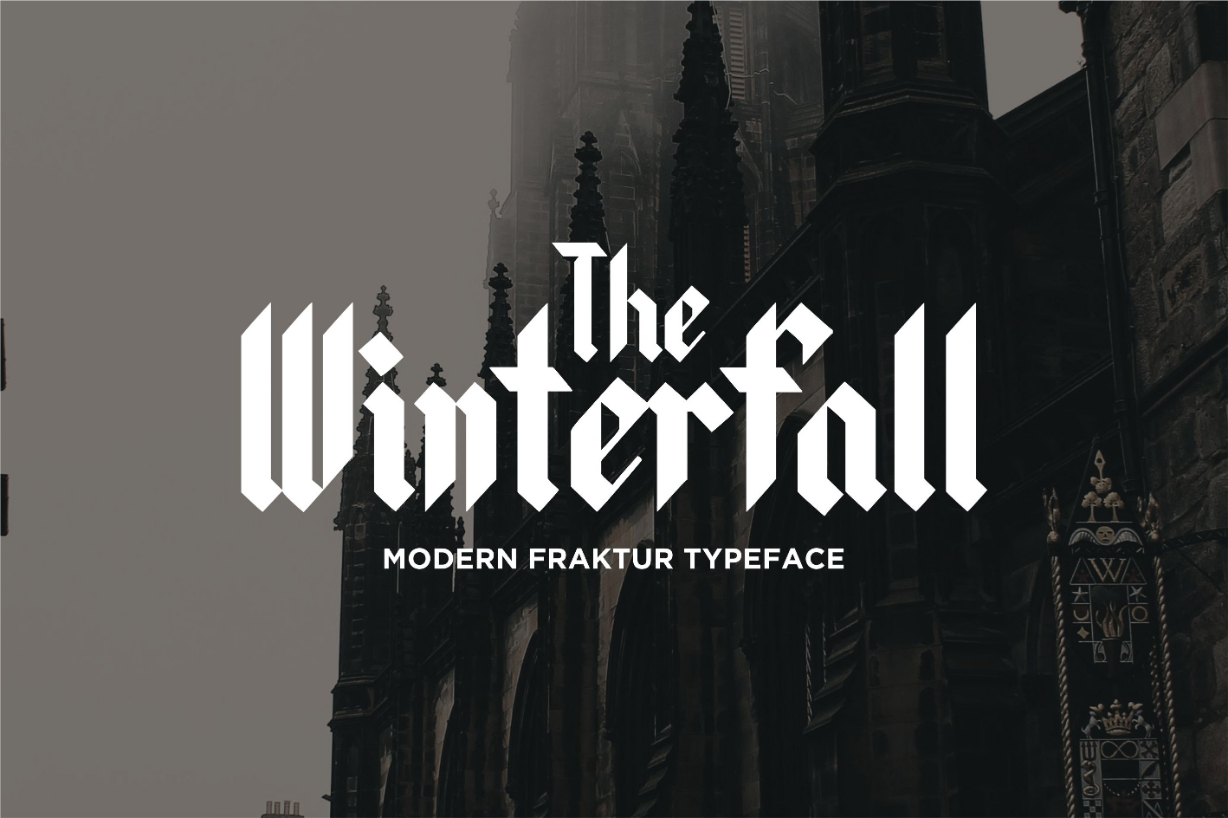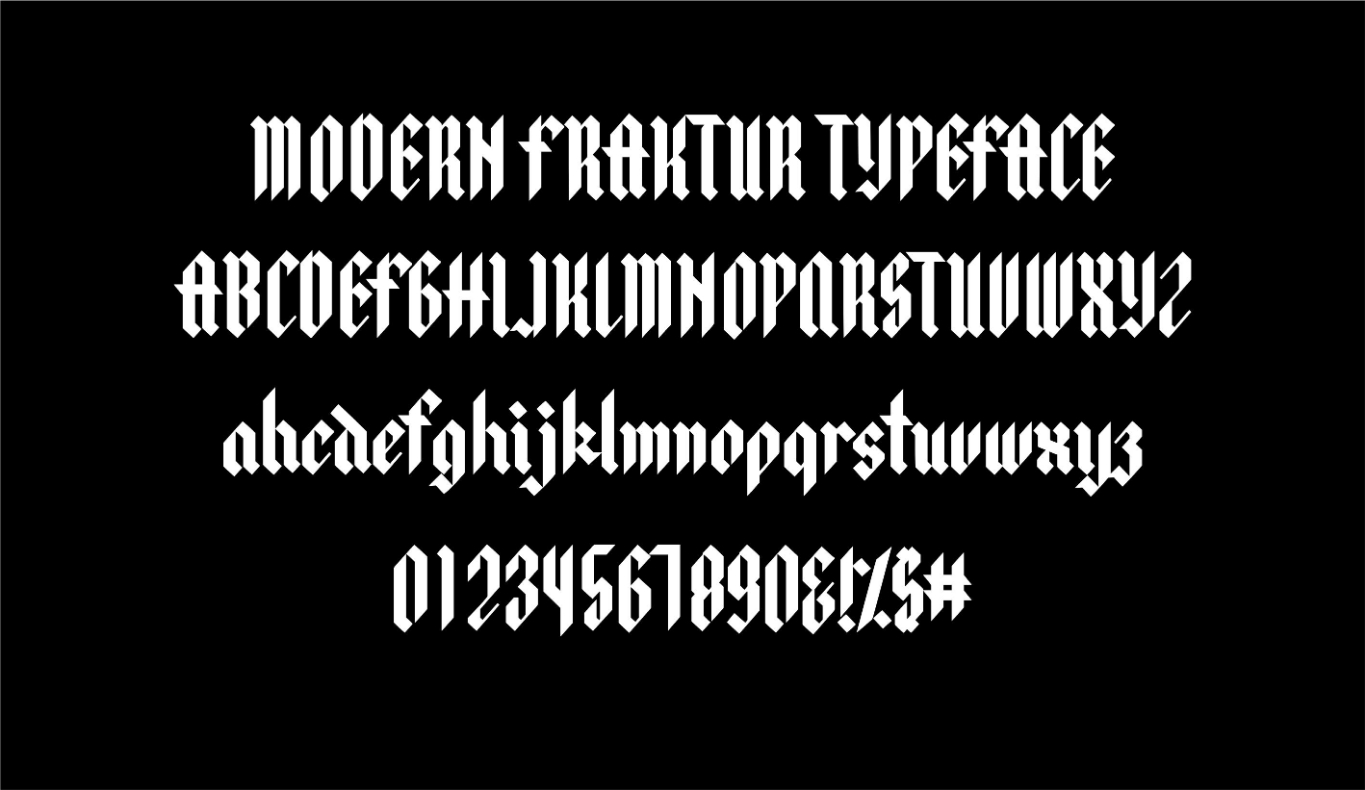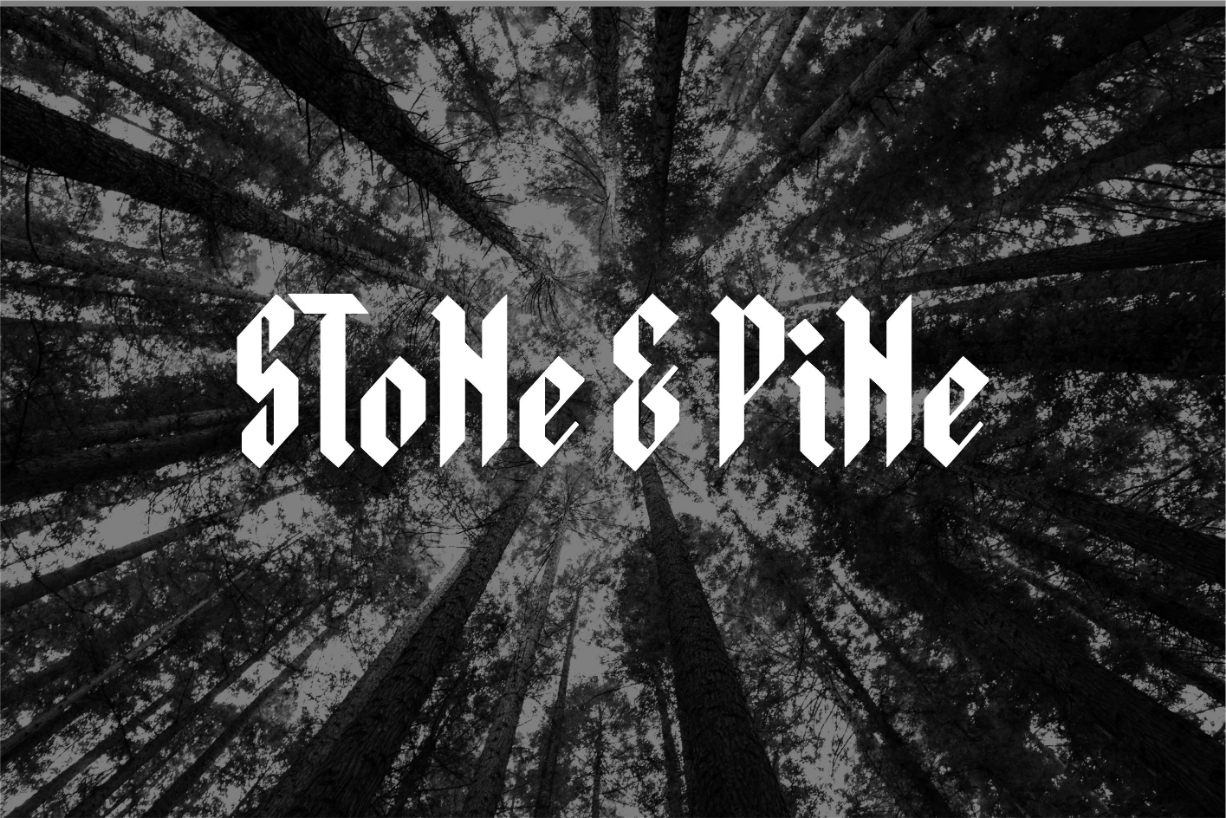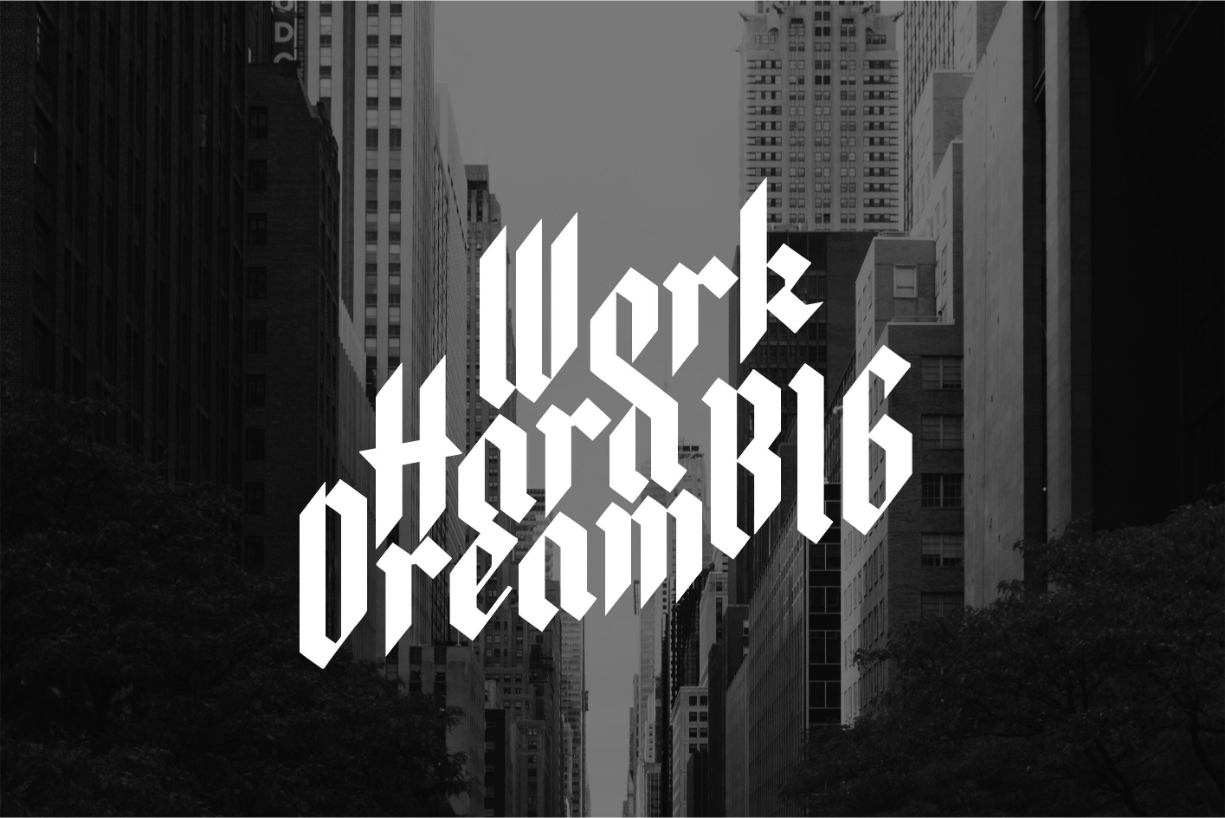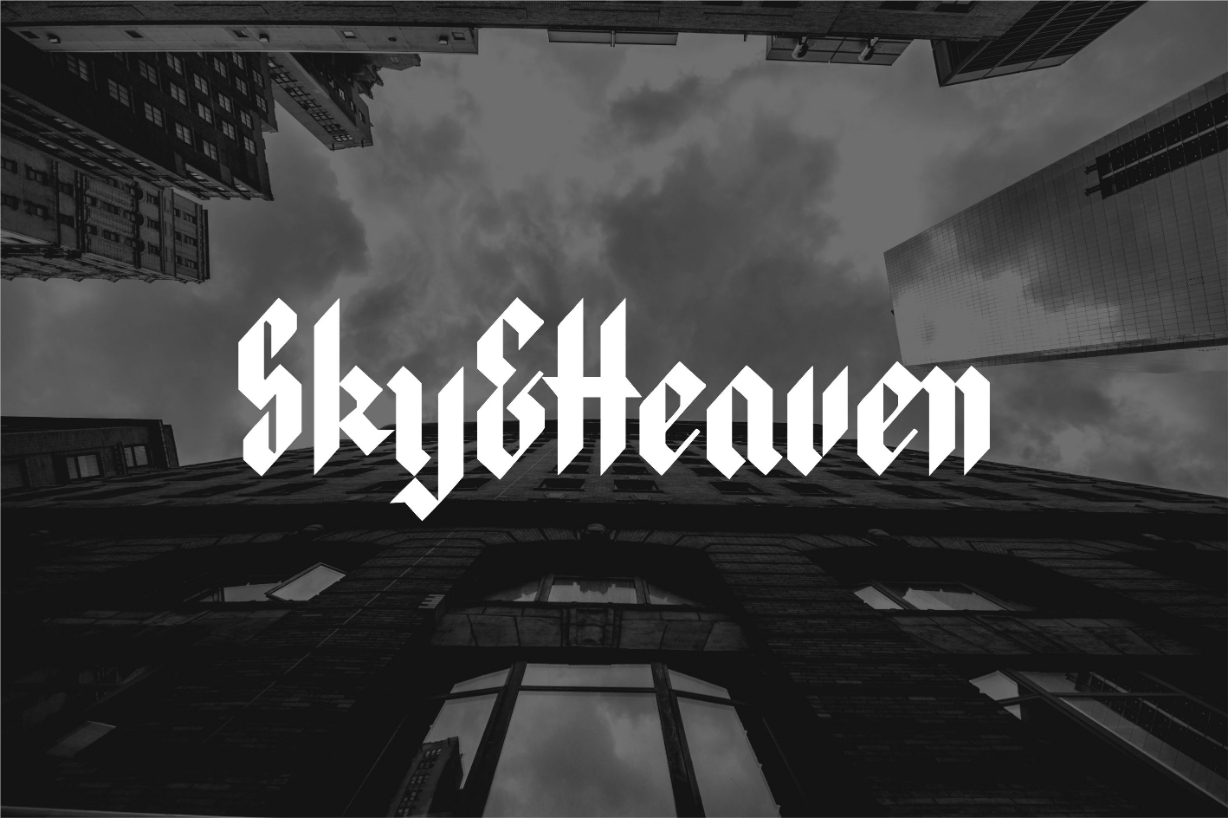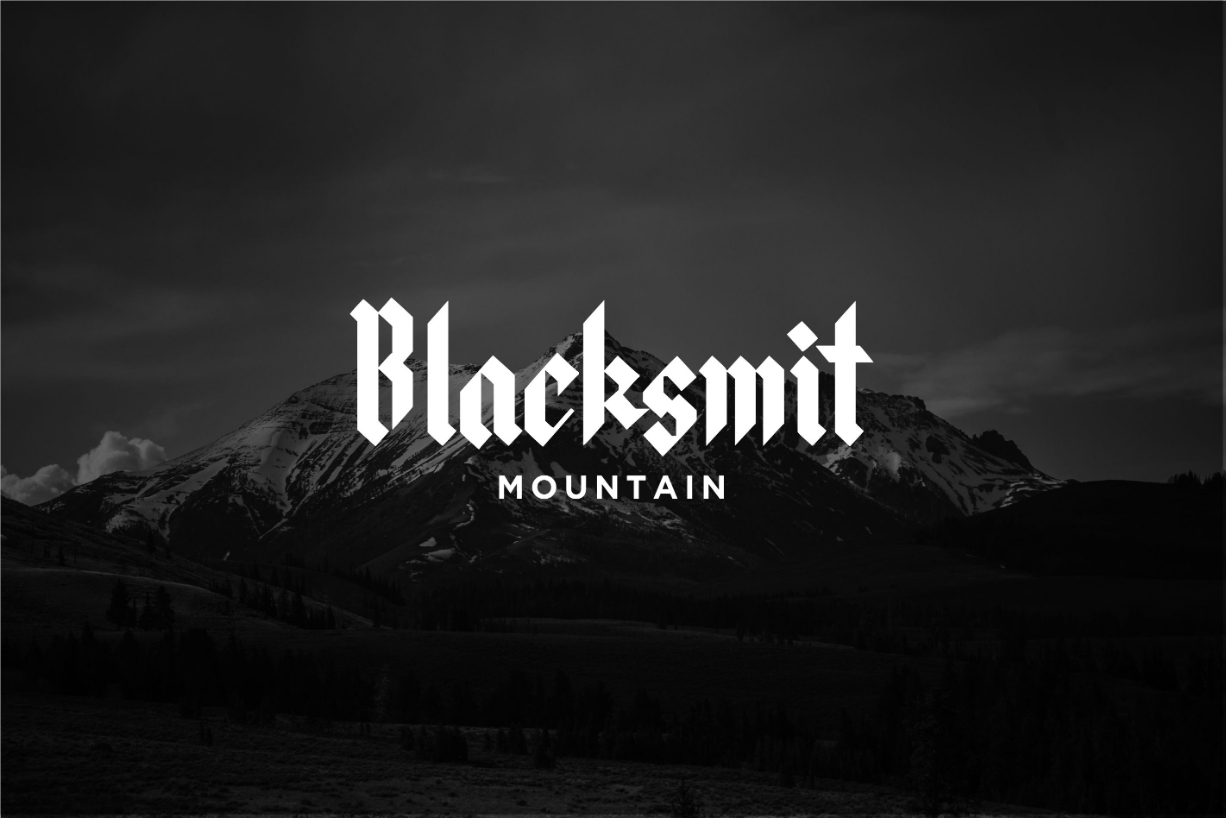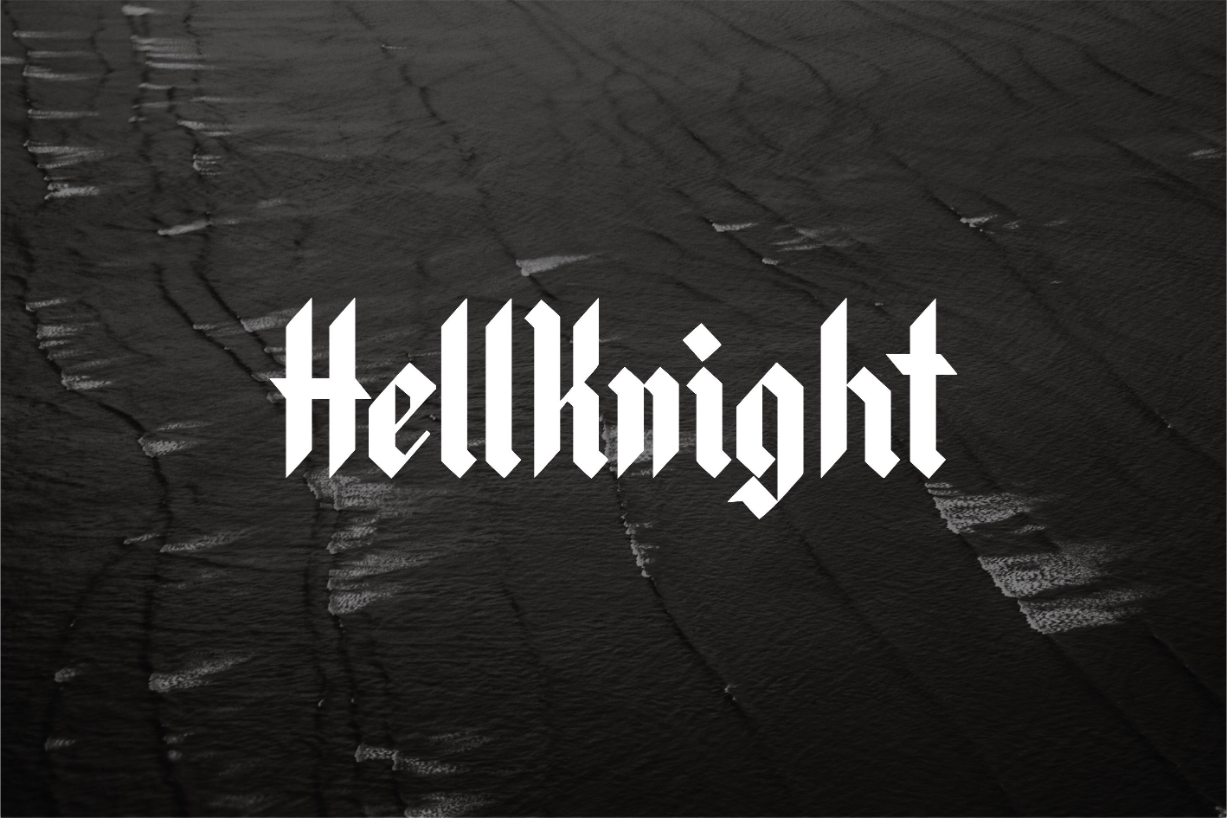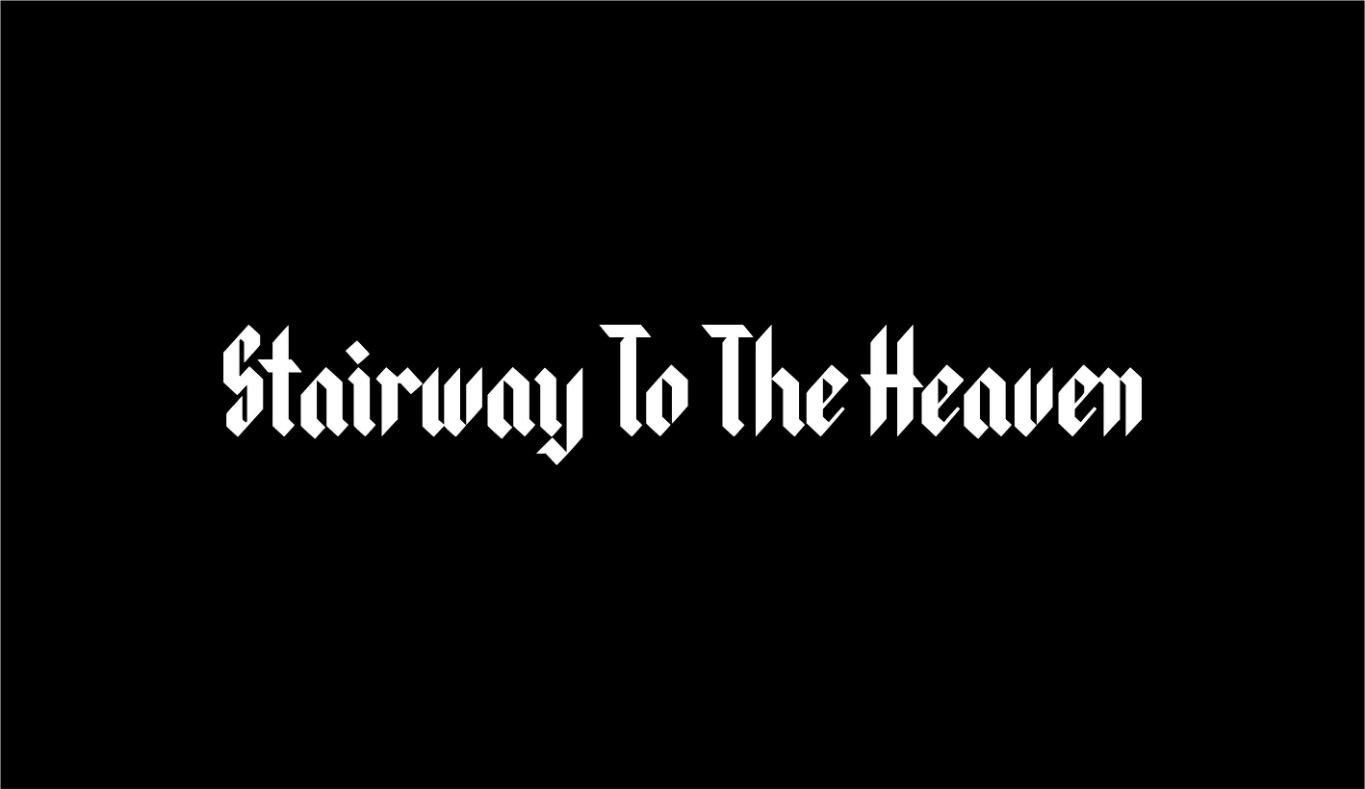
Winterfall Font
About Winterfall Font
The Winterfall is a modern blackletter font. It has a striking, 16th century look and will add an unique touch to your designs.